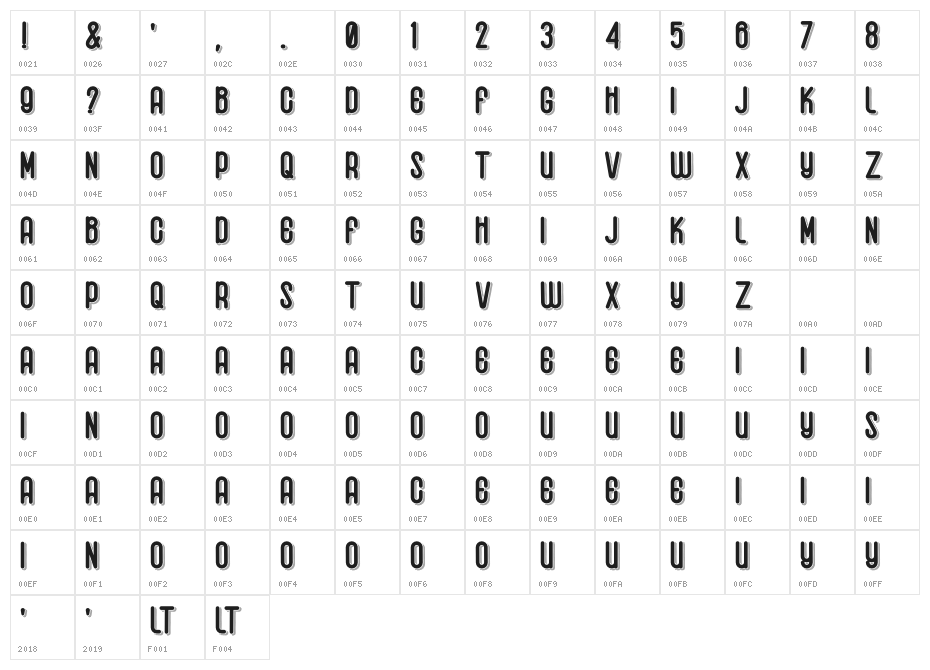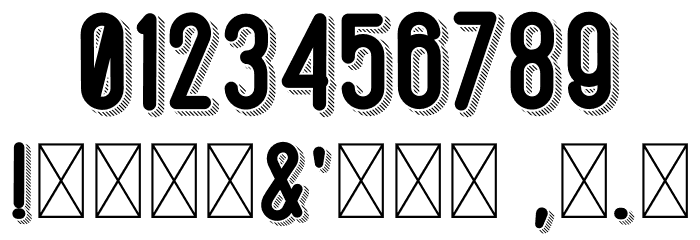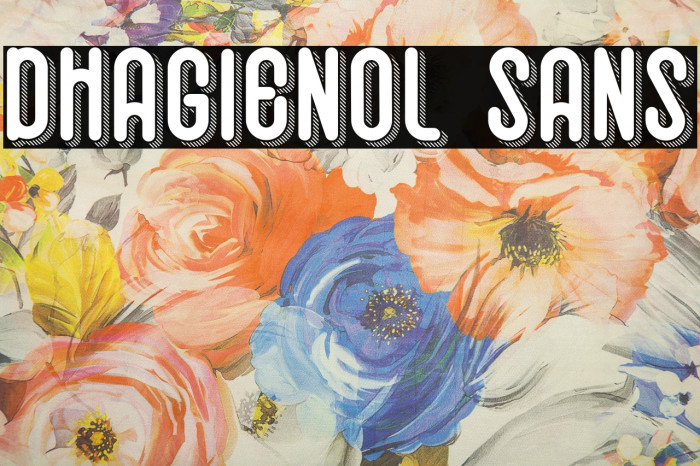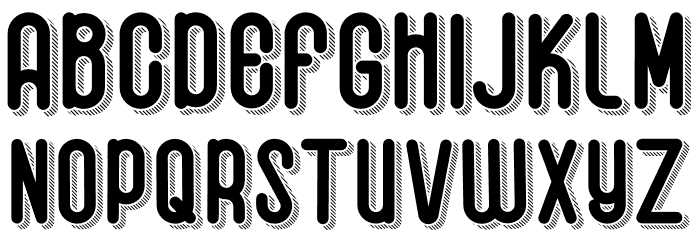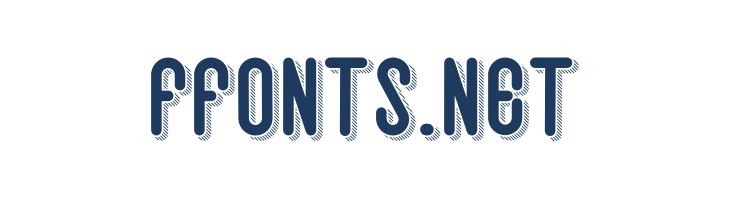
Dhagienol Sans Font
Dhagienol Sans Description
This font features a bold and dynamic style with a distinct shadow effect that gives it a three-dimensional appearance. The characters are uppercase and have a strong presence, making them ideal for attention-grabbing designs. The shadow effect is consistent across all characters, adding depth and a playful touch. The font maintains a uniform stroke width, contributing to its bold and impactful look. The numbers and special characters are designed with the same shadow effect, ensuring a cohesive appearance throughout. This font is perfect for projects that require a bold statement and a touch of creativity.